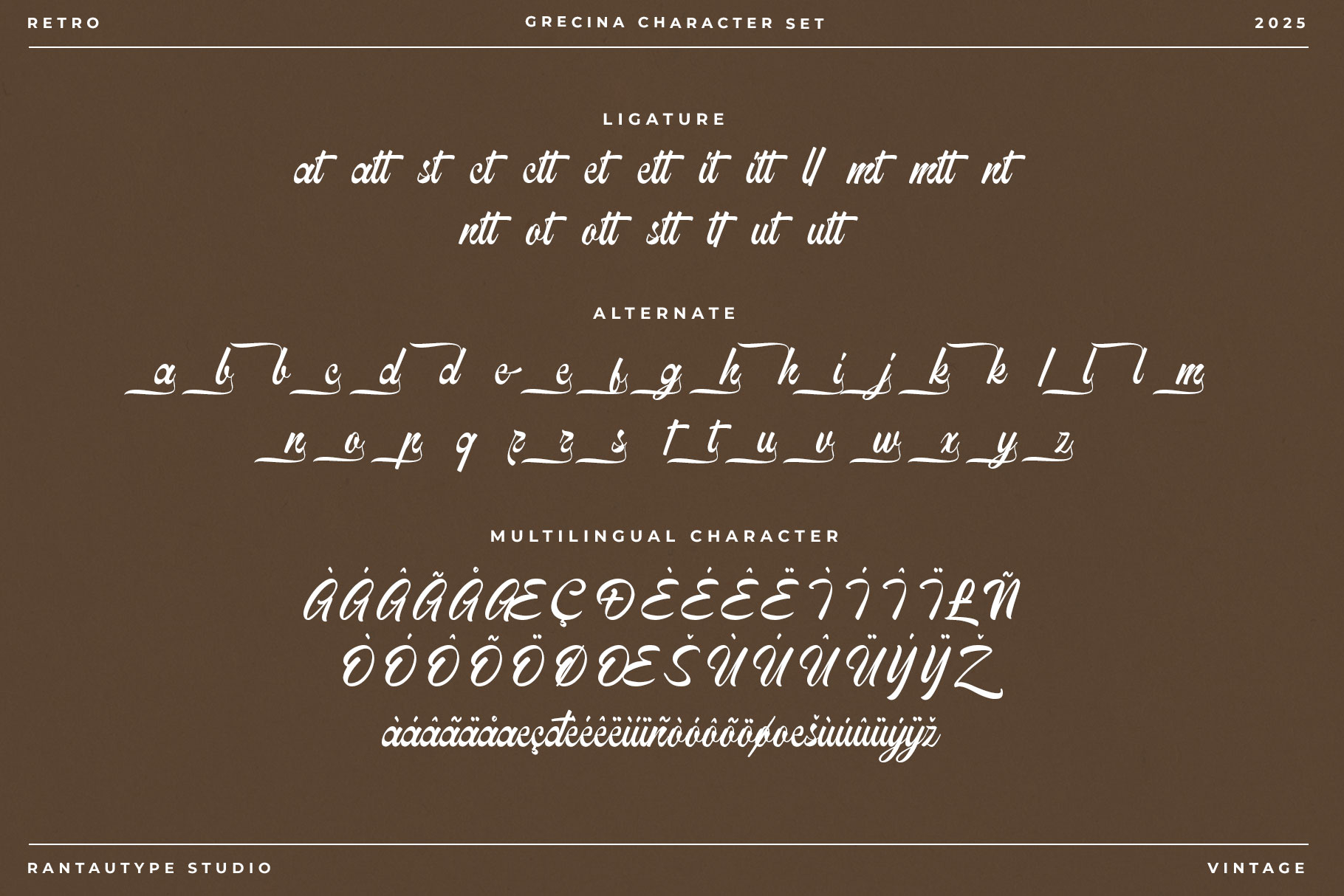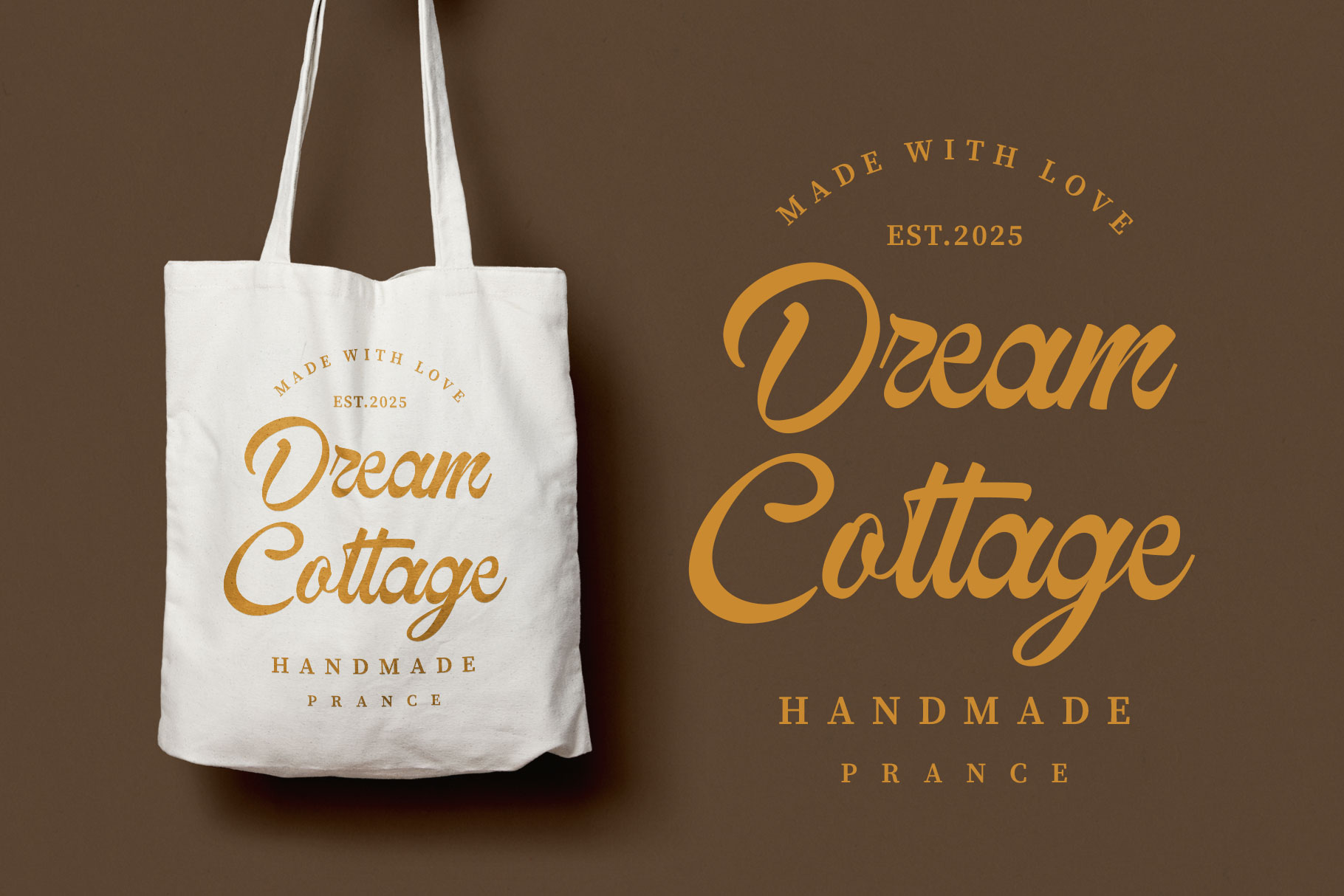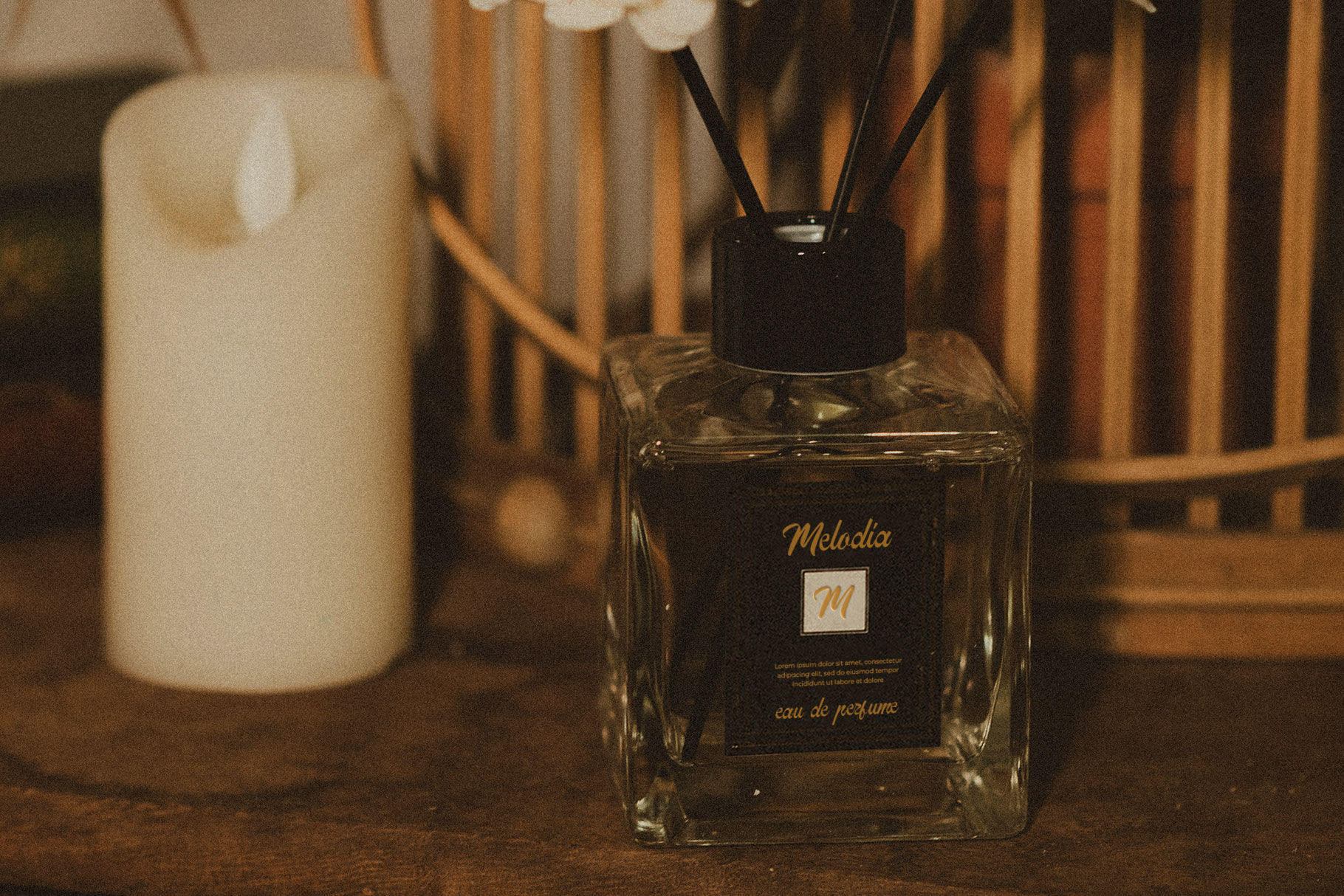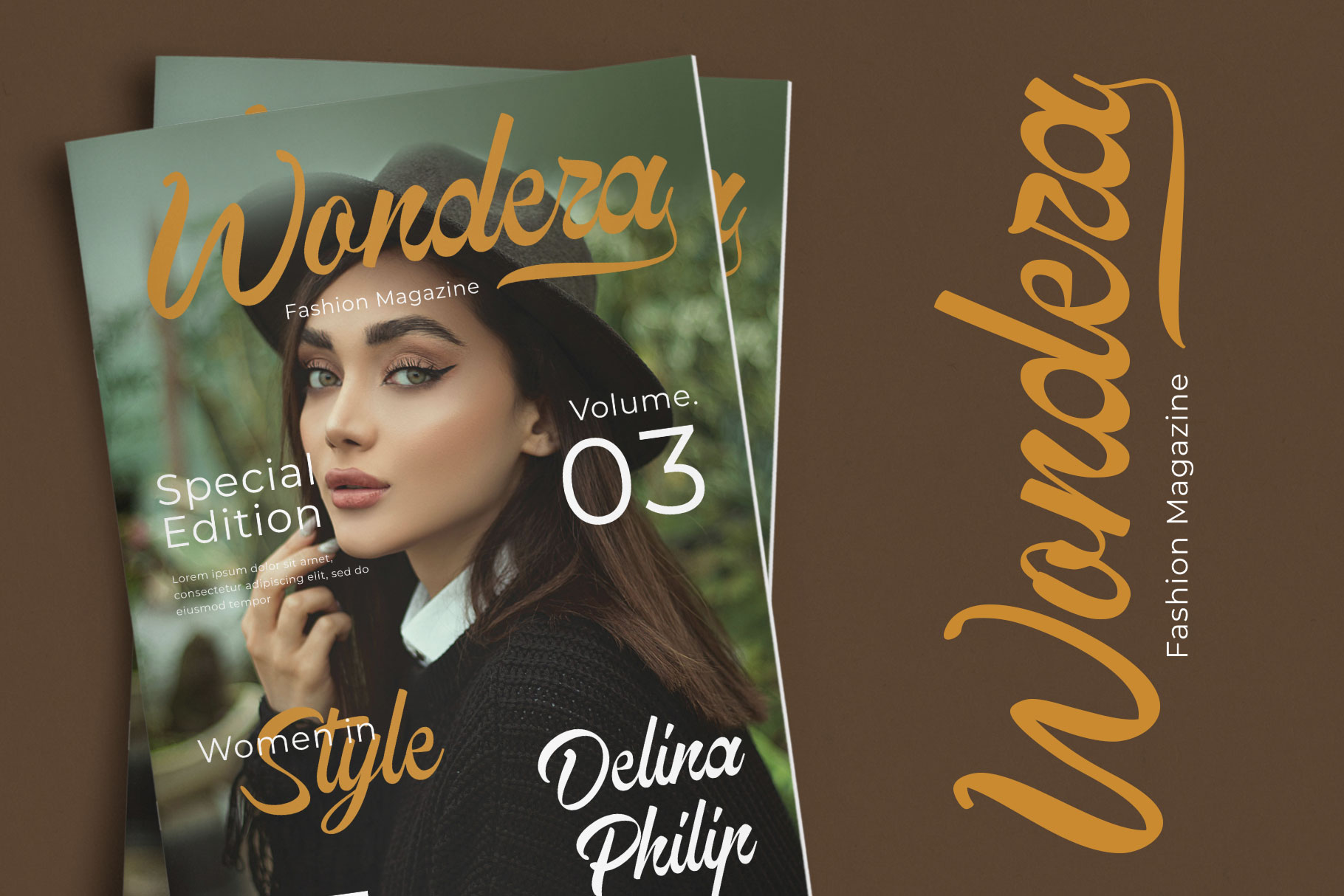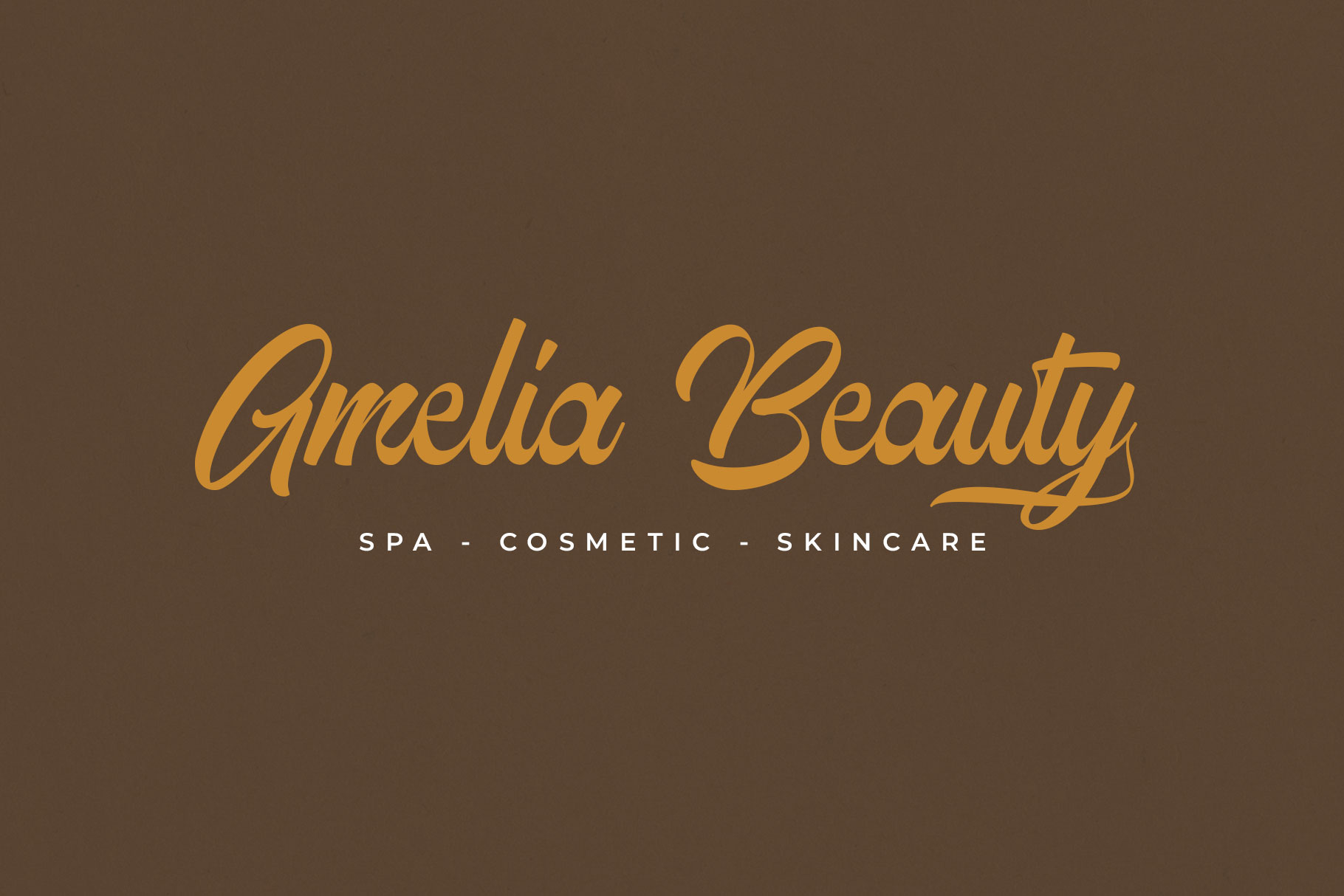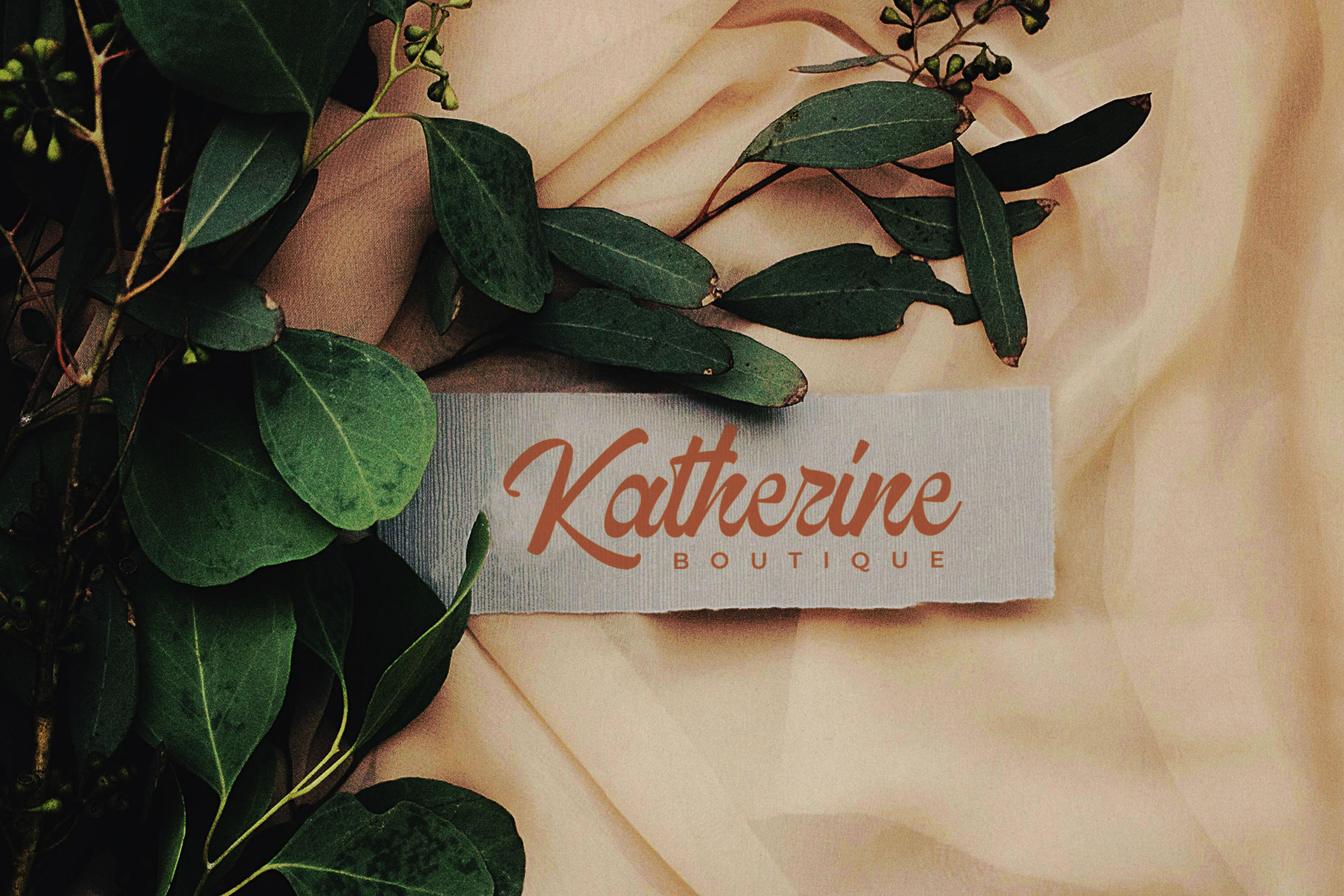
Grecina Vintage Script Font
Grecina is vintage script font with authentic style. Grecina come with contrast bold character to make a nostalgic look. Grecina is a perfectly choice for any creative endeavor, creating, modern, lifestyle design such as logotype, title, cover, branding, invitations, wedding designs, display and magazine, social media posts, advertisements, printed quotes, product packaging, corporate brand, product designs, labels, photography, watermarks, special events and any other project with retro touch.